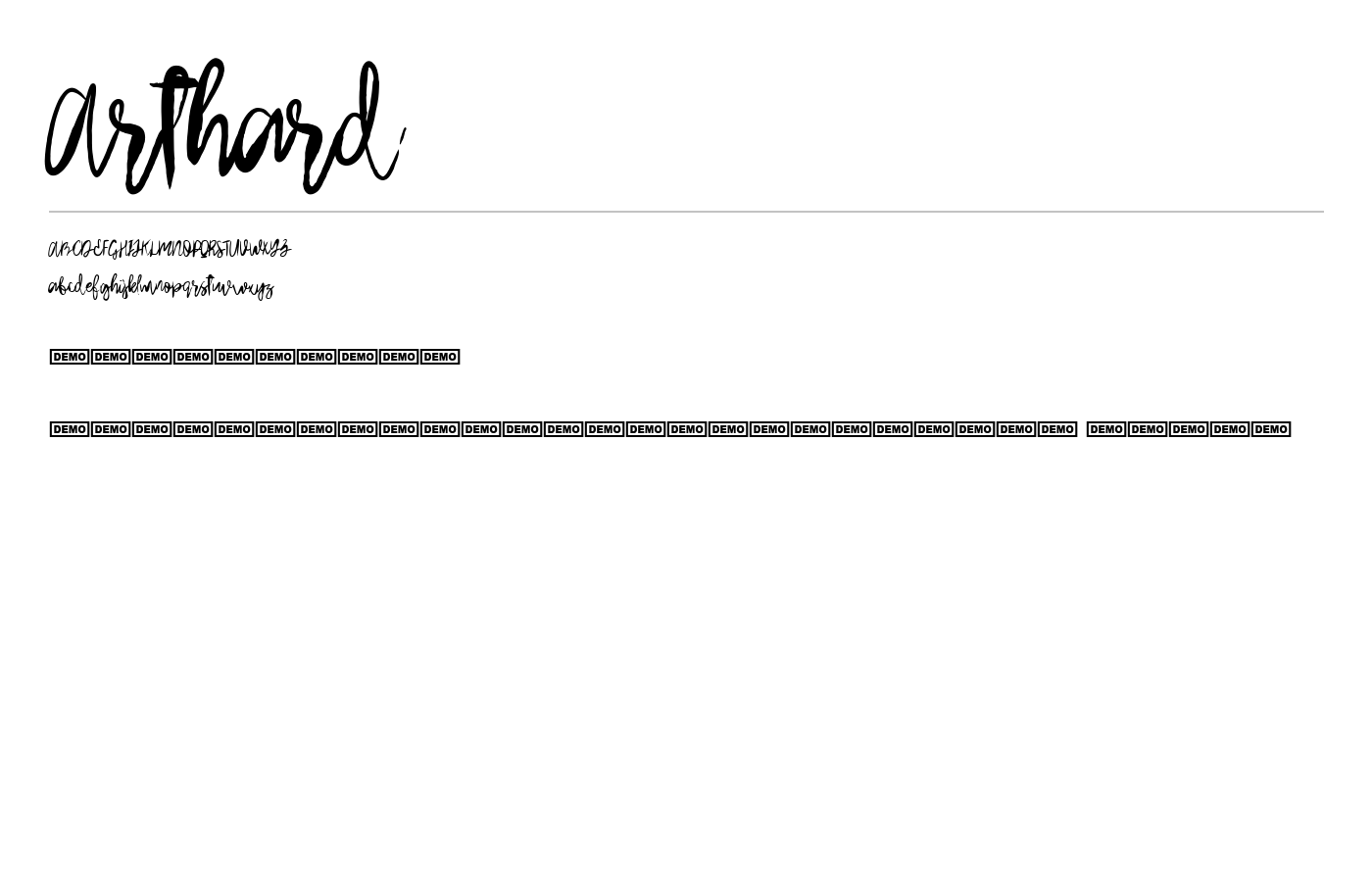
Arthard is a lively, handwritten script font featuring elegant, fluid strokes with a natural, casual feel. Its thin, slightly irregular lines and connected letterforms make it ideal for creative projects, invitations, and branding that seek a personal, artistic touch. This font works best in headlines or decorative text where its expressive style can truly stand out.
Arthard Font
About Arthard Font
| Font family | Arthard Font |
| Designer | Katsia Jazwinska |